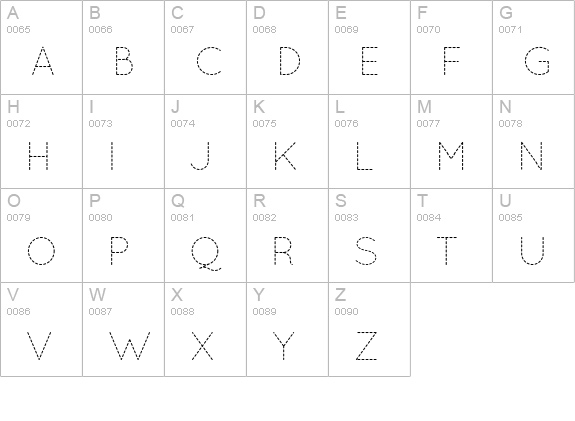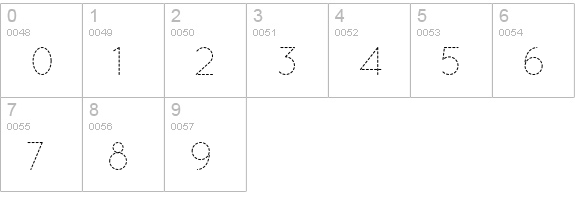
Quicksand Dash Regular Font Details
Quicksand Dash Regular is the standard, neutral variant in the Quicksand typeface family \xE2\x80\x94 well suited to general body text, paragraphs, and standard typographic work.
Quicksand Dash Regular is a modern and stylish font that will add a touch of sophistication to any design project. With its clean lines and sleek curves, this font is perfect for both print and digital applications. Whether you're working on a logo, website, or branding materials, Quicksand Dash Regular will effortlessly elevate your design and make it stand out from the crowd. This font offers a unique blend of simplicity and elegance, making it suitable for a wide range of projects. Its versatility allows it to be used for anything from headlines to body text, making it a great choice for both large and small-scale designs. The characters are well-balanced and visually appealing, ensuring readability even at smaller sizes. One of the best features of Quicksand Dash Regular is that it is available for free. Yes, you read that right! This font can be freely downloaded at FontsMarket.com. This means that you can enjoy the benefits of this amazing font without having to spend a dime. So why wait? Head over to FontsMarket.com and download Quicksand Dash Regular today to add a touch of elegance to your designs.